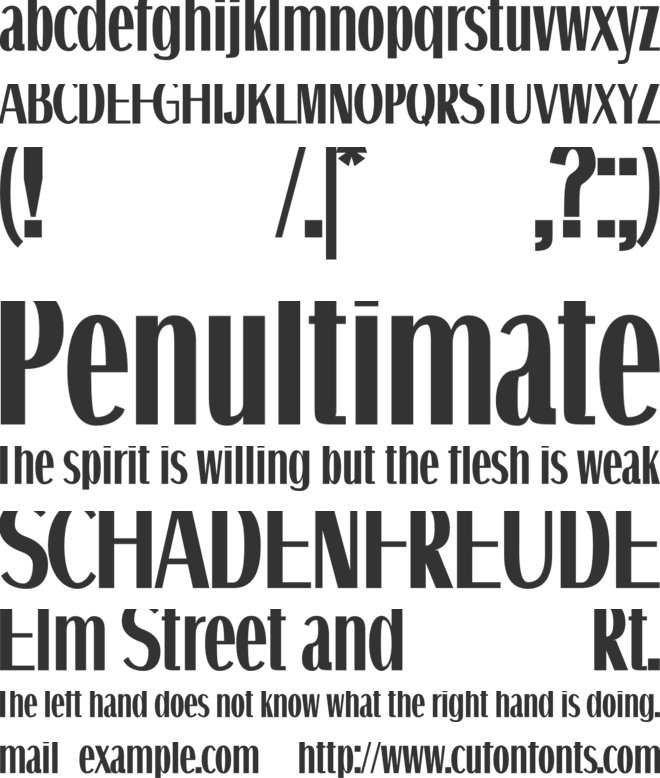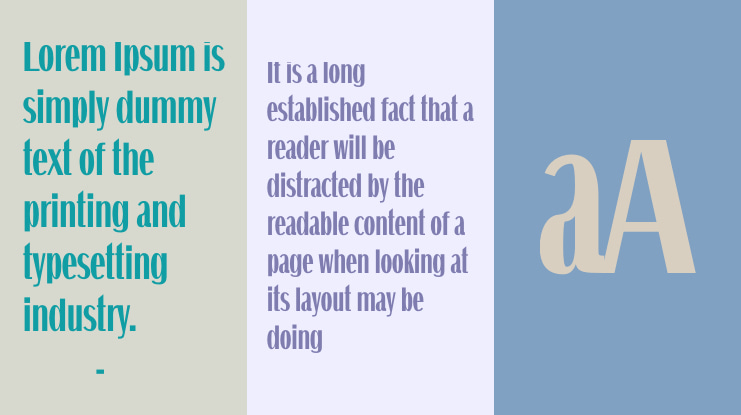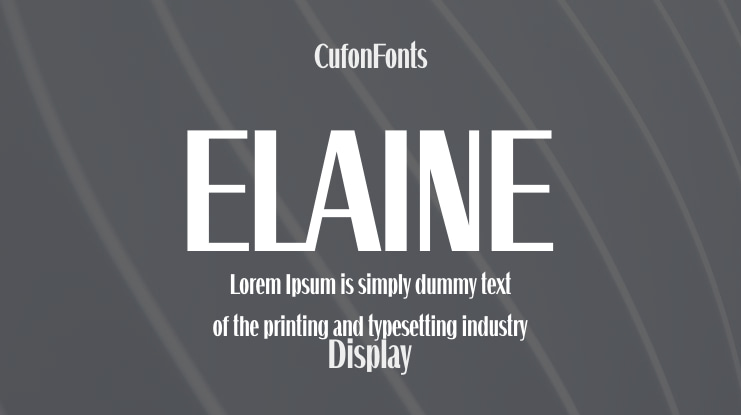
ELAINE Font
🎨 Font Name: ELAINE by Minimalist Art Studio
🎨 Font Description: Elaine is a clean sans serif typeface with elegant simplicity, multilingual support, and versatile styles—perfect for branding, editorial design, fashion content, and modern digital projects.
✔ Complete Latin set + multilingual diacritics
✔ Alternates, stylistic sets & ligatures
✔ Numbers, small caps, and extended punctuation
✔ Bonus italics and family styles